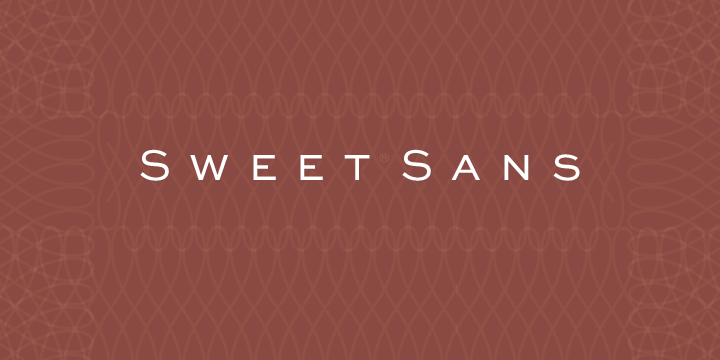
Sweet Sans Font is a charming and highly versatile sans-serif typeface, characterized by its distinctive blend of modern clarity and a subtle, friendly warmth. Imagine it gracing the headlines of a contemporary lifestyle magazine, providing crisp and inviting body text for an artisanal food blog, or bringing an approachable elegance to branding for a boutique retail store. Its refined yet welcoming aesthetic makes it an excellent choice for editorial design, app interfaces, high-end packaging, and any project that seeks to convey sophistication without being overly formal. It performs beautifully in both large display settings and smaller text blocks, ensuring excellent legibility across diverse digital and print applications.
What makes Sweet Sans Font truly exciting is its masterful balance of geometric precision and organic fluidity. While it maintains the clean lines expected of a high-quality sans-serif, it often features subtle curves or unexpected details that give it a unique, endearing personality. This thoughtful design allows Sweet Sans Font to feel both professional and personal, making it incredibly adaptable for brands that want to communicate trust and accessibility. Designers frequently praise its meticulous craftsmanship, exceptional legibility at various sizes, and its inherent versatility that allows it to seamlessly integrate into sophisticated design systems. It's not just a font; it's a finely tuned instrument for creating harmonious and engaging visual communication.
The Sweet Sans Font family is typically quite comprehensive, offering a robust selection of weights and styles to meet a broad spectrum of design needs. You can generally expect to find a wide array of weights, ranging from a delicate Thin or Light, perfect for subtle accents and airy compositions, to a sturdy Bold or Black, ideal for impactful headlines and strong visual statements. Critically, most Sweet Sans Font families also include corresponding Italic versions for each weight, which significantly enhances its flexibility for creating visual hierarchies and adding dynamic emphasis within your text. This extensive selection ensures remarkable creative control and allows you to achieve the perfect typographic tone for any project. Don't miss out on Sweet Sans Font Free Download for your next design endeavor!